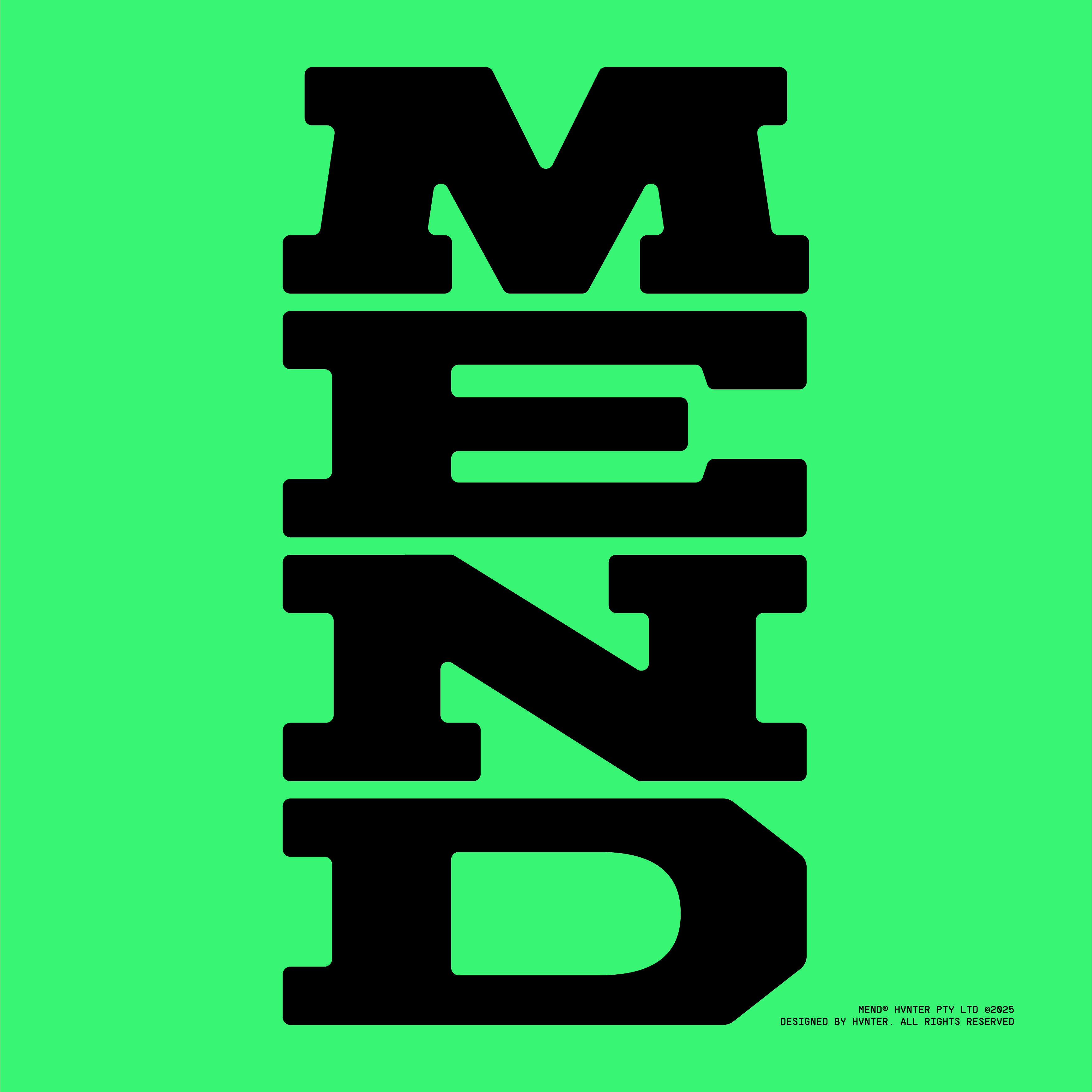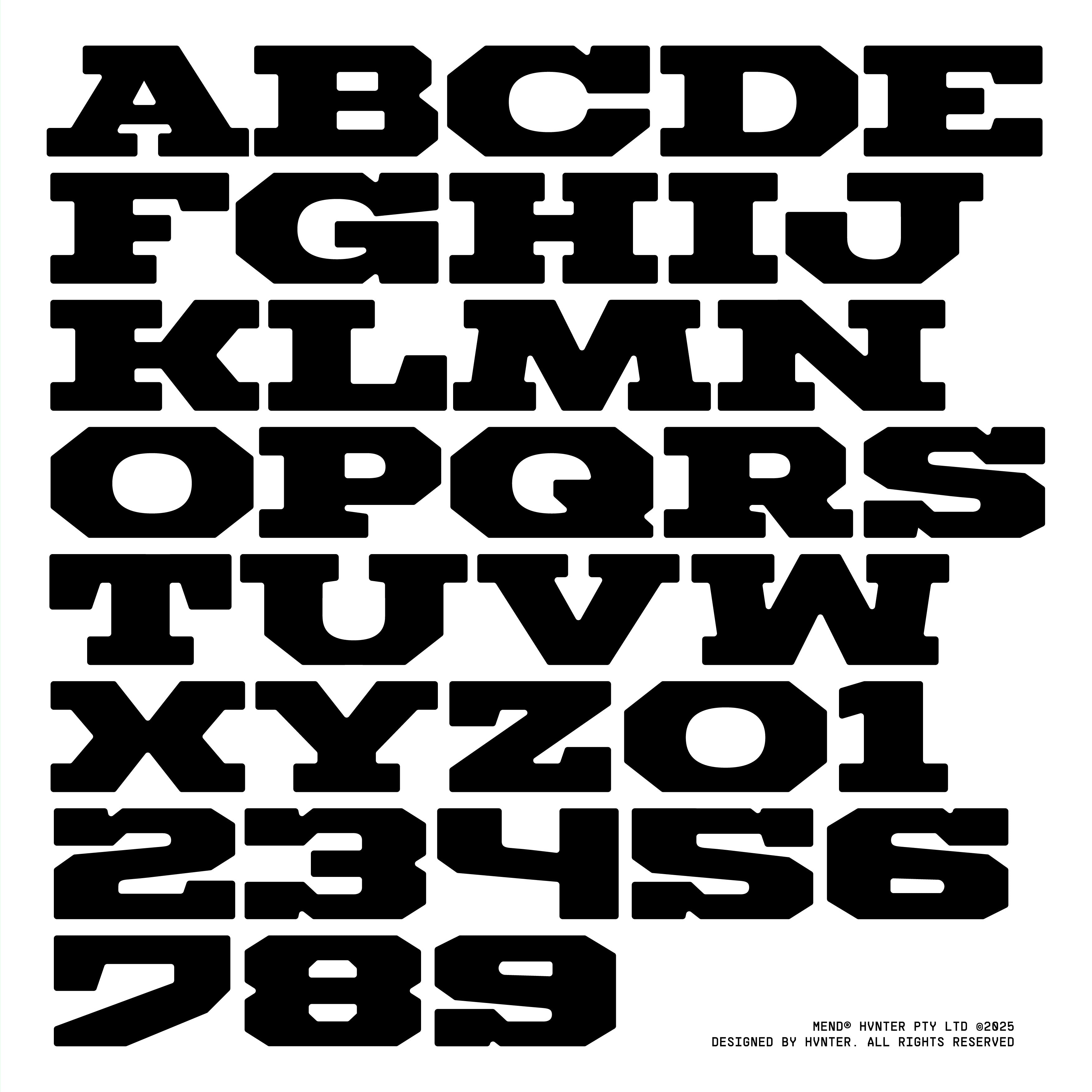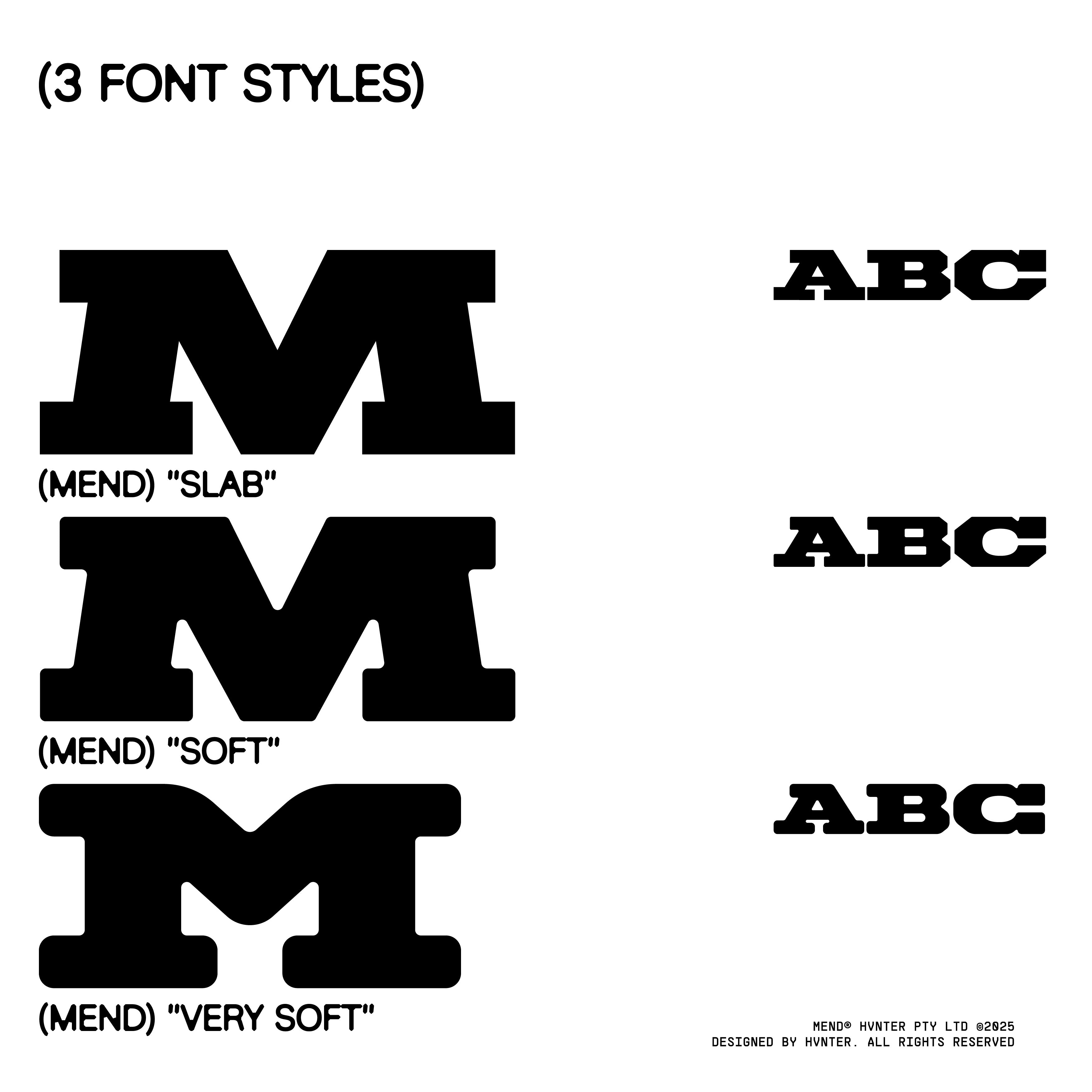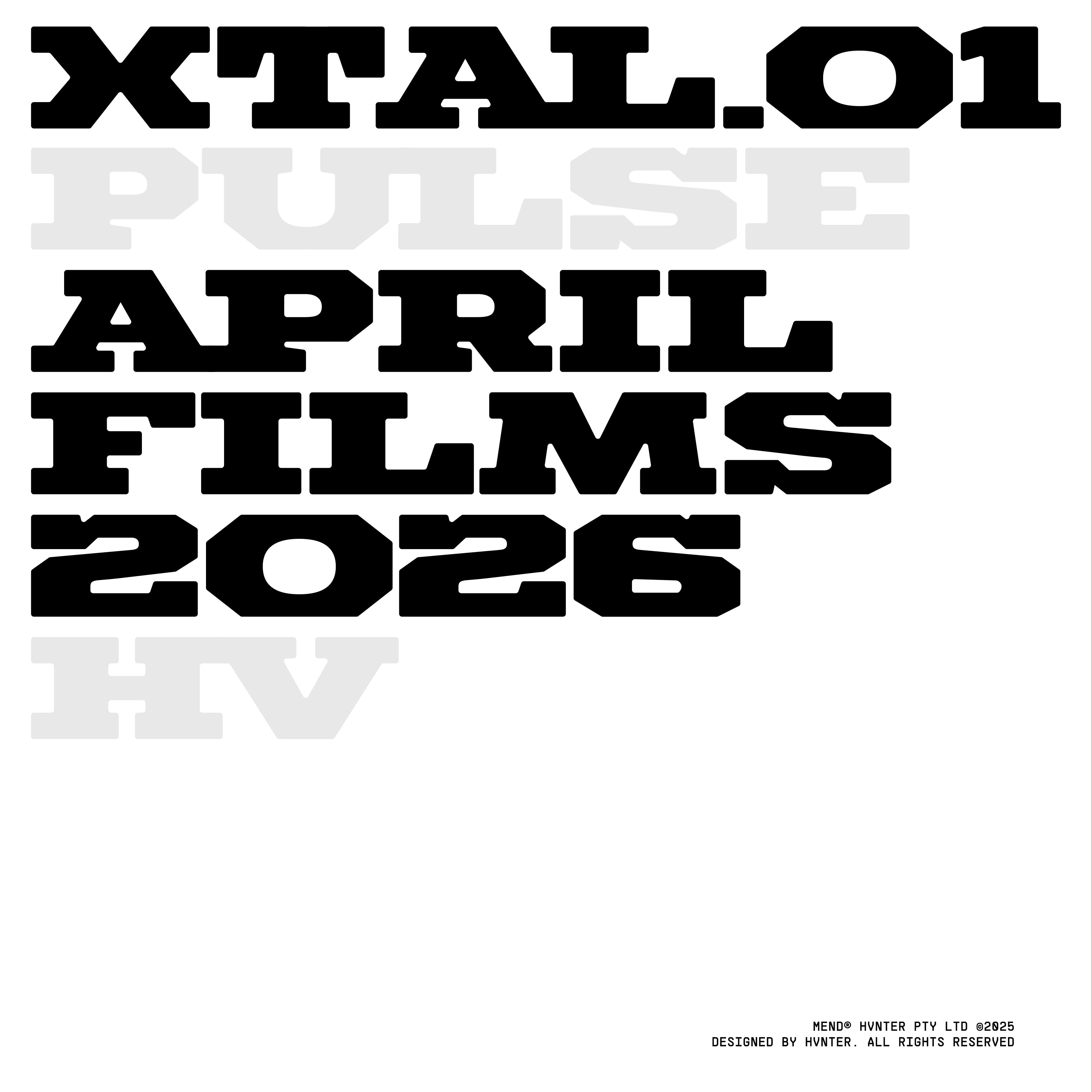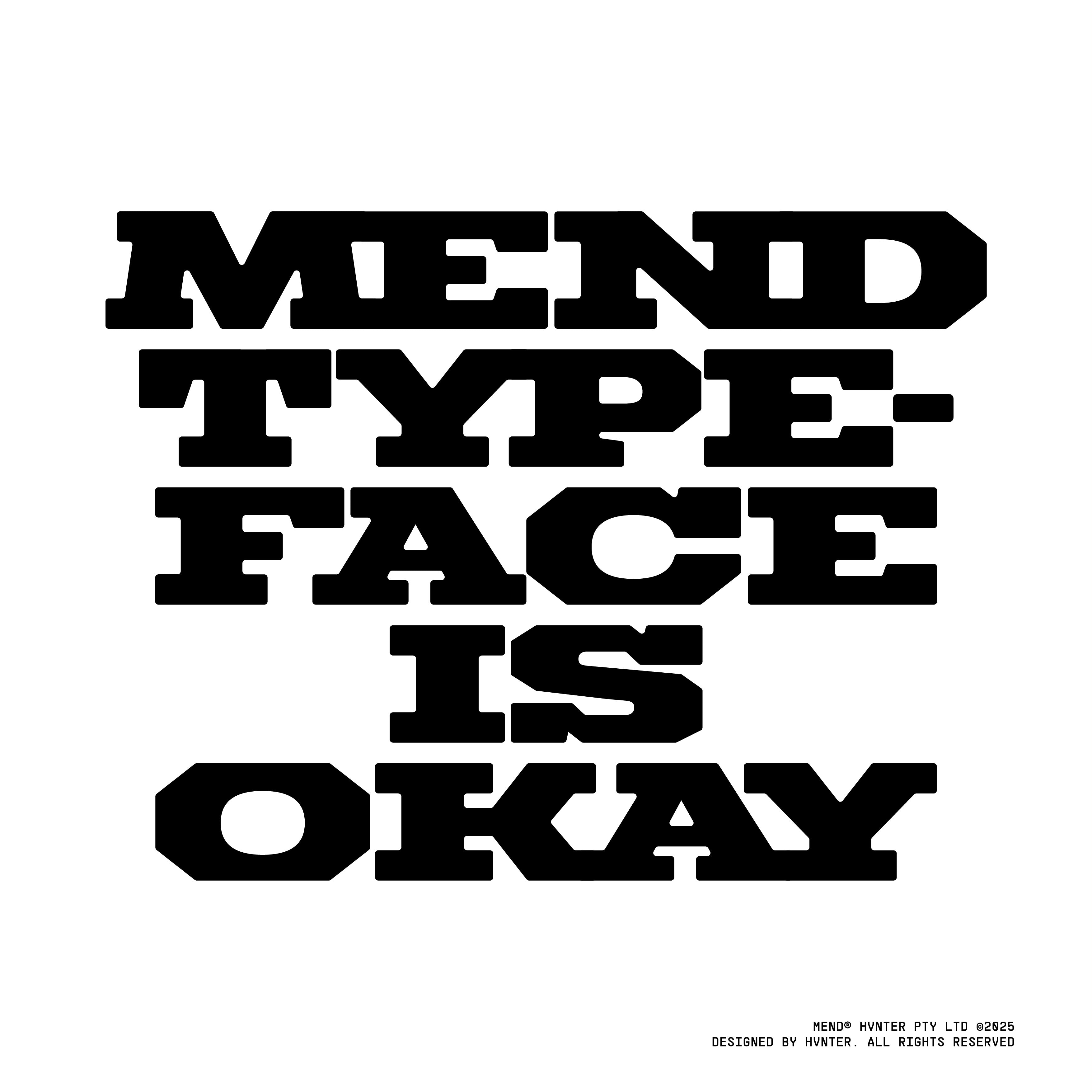
Mend Typeface
Mend SLAB Typeface:
Includes x3 styles, with A-Z, 0-9 +basic symbols.
Mend Typeface is a slab font that includes three styles, featuring uppercase A-Z, numbers 0-9, and basic symbols. It is designed with a bold and heavy appearance, suitable for modern and vintage applications.